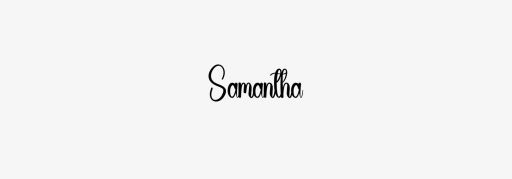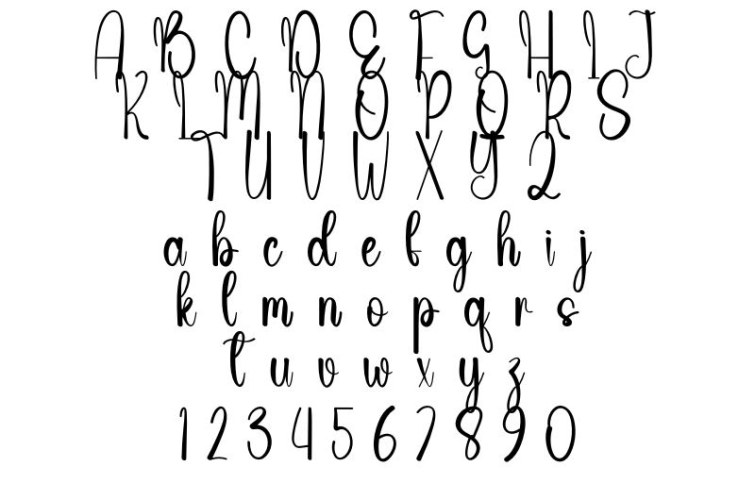
Samantha Font
Samantha Font brings an elegant handwritten style with smooth curves and flowing strokes. Its refined look works well in invitations, branding, packaging, and social media graphics. In addition, the graceful letterforms add warmth and beauty to any design. Designers choose Samantha when they want a soft, stylish, and romantic script that stands out with charm.